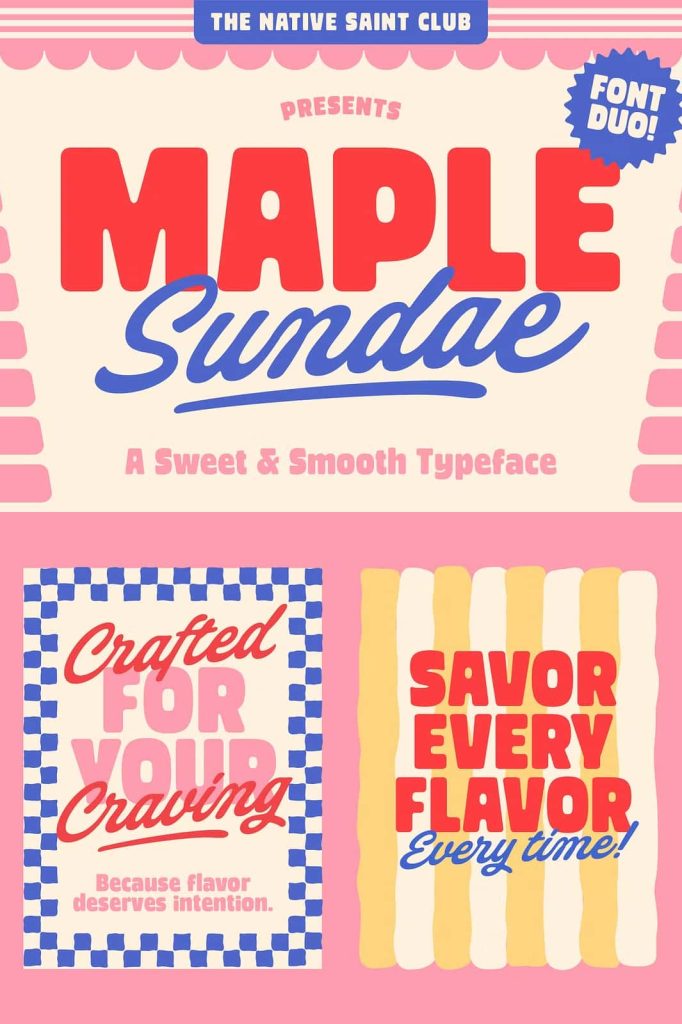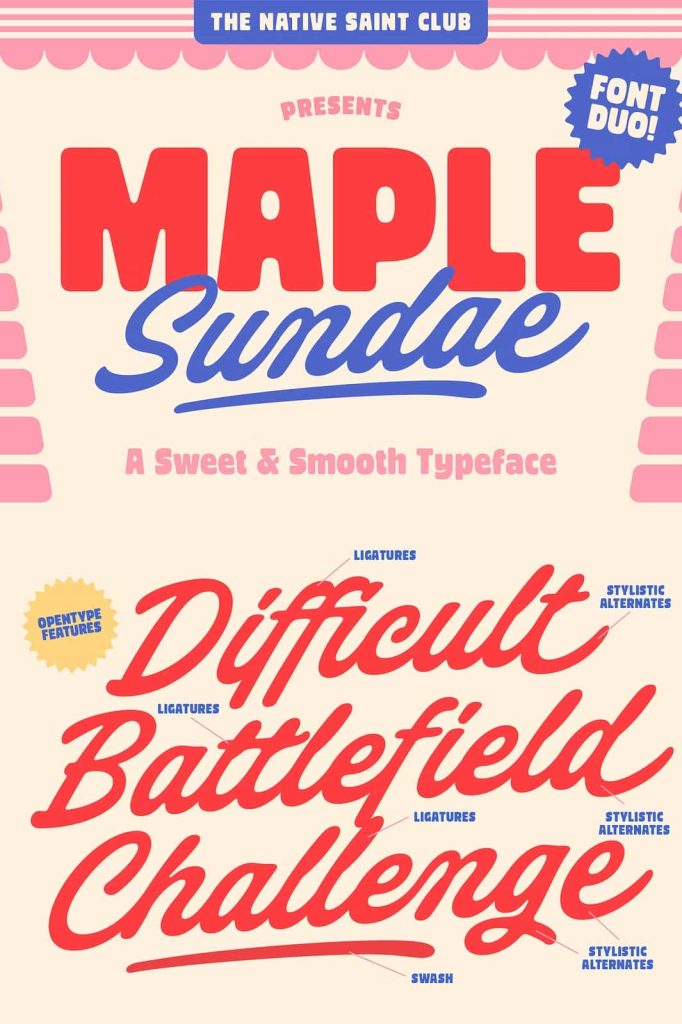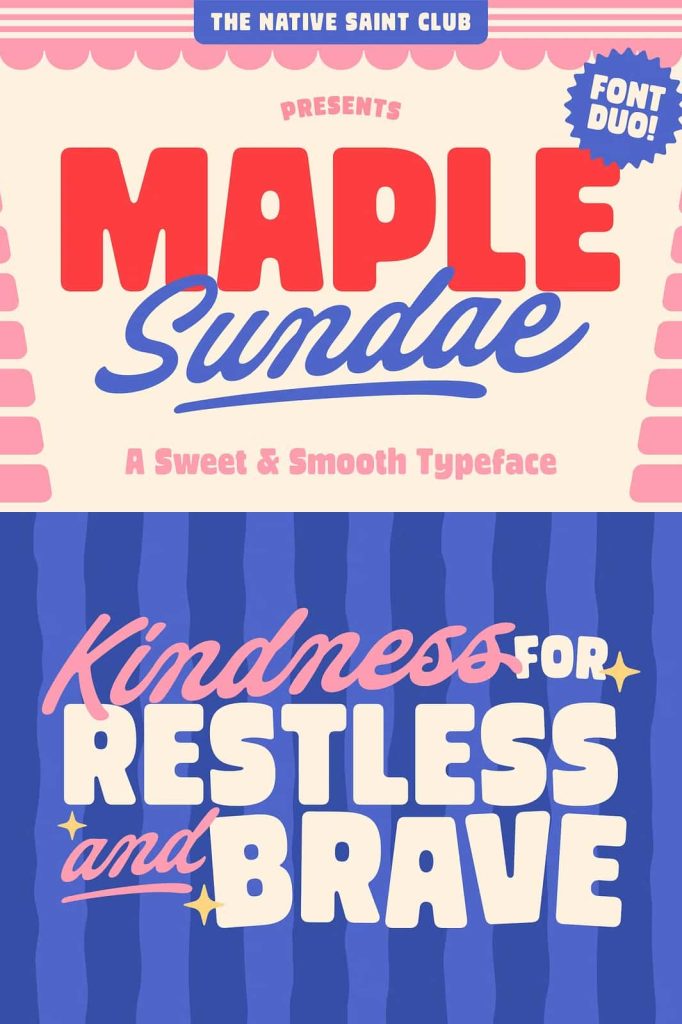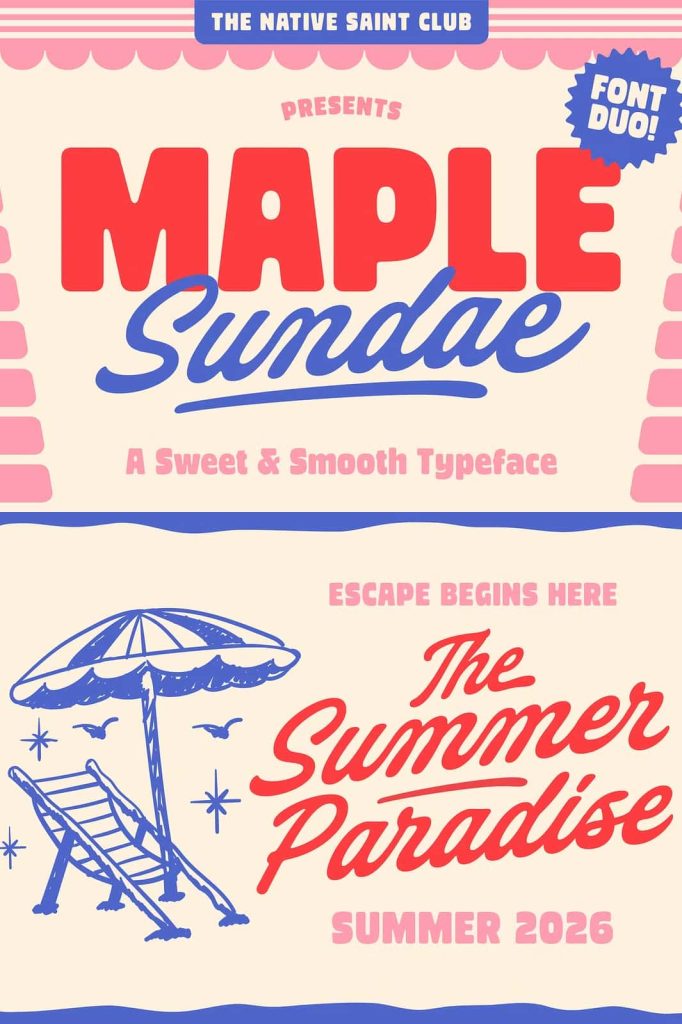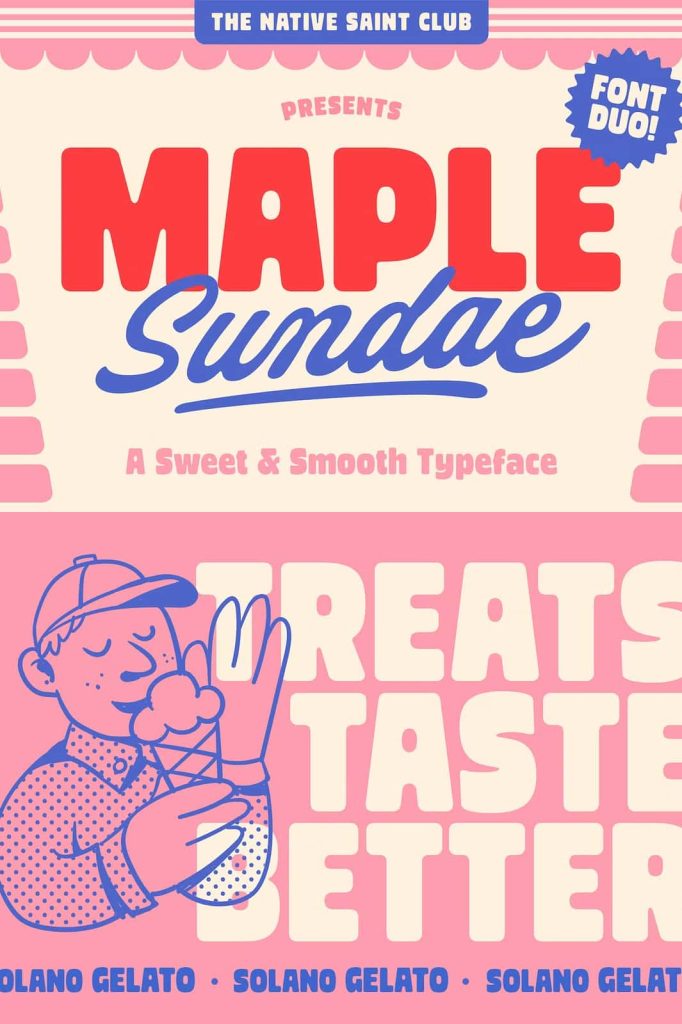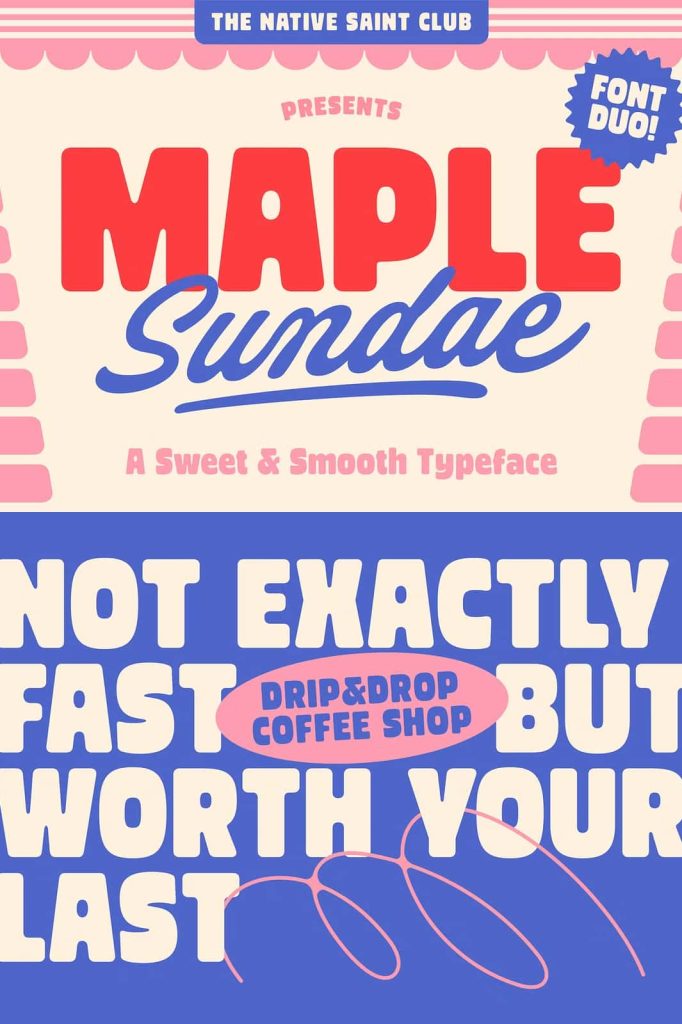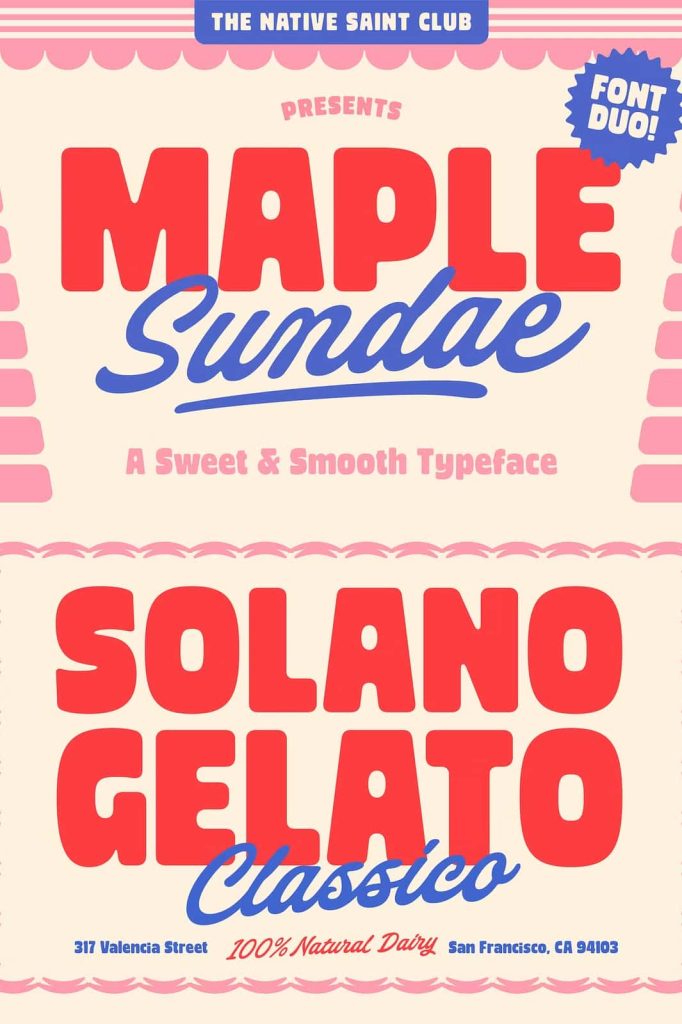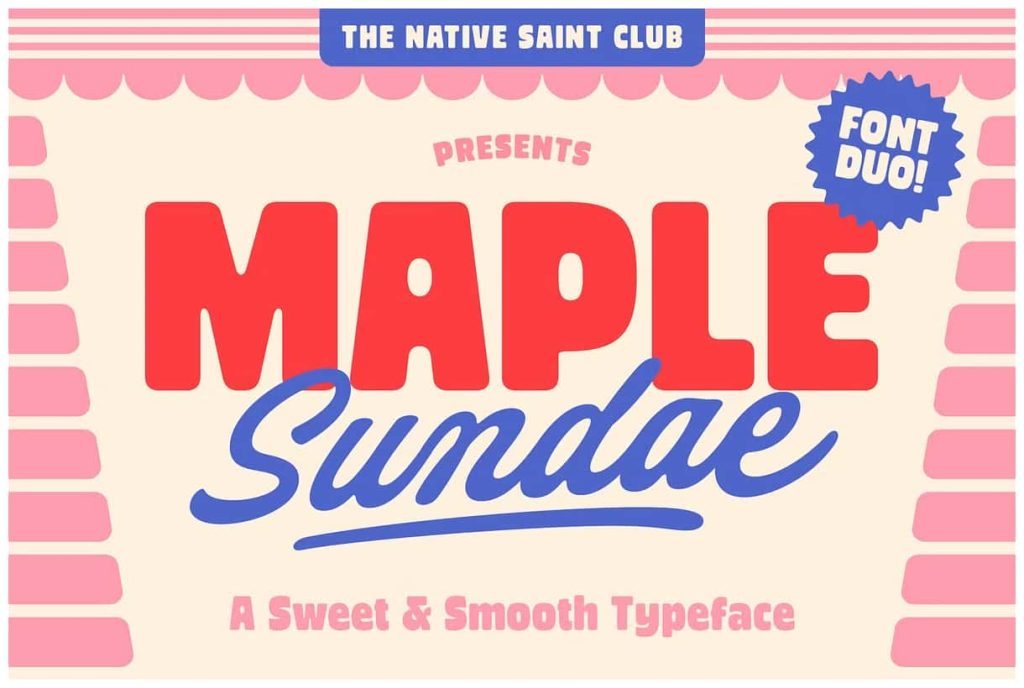
TNSC Maple Sundae – Font Duo!
TNSC Maple Sundae, a sweet and smooth font duo! With its chunky, rounded sans and a flowing, handwritten-style script, this playful pair brings just the right mix of bold and friendly.